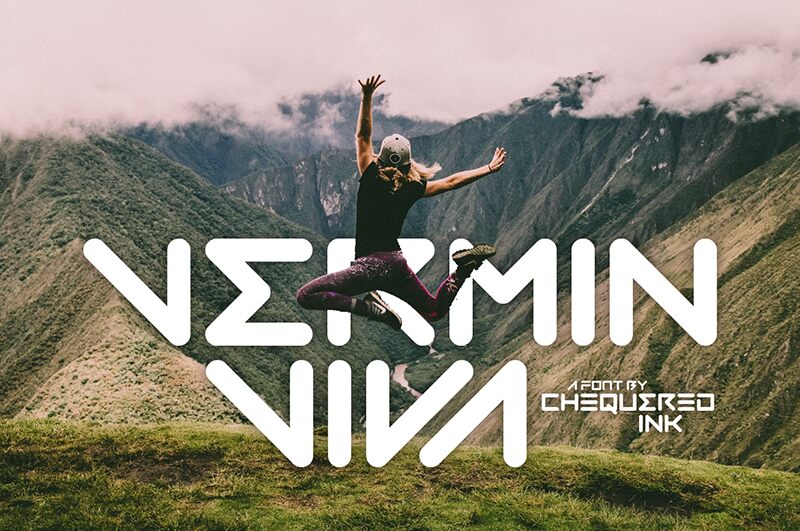
Vermin Viva
Vermin Viva font by Chequered Ink is a techno display font featuring an expanded width for engaging long or short texts. It has an industrial, futuristic, and geometric style that will not go unnoticed in your creative design. The letters share a modern appeal created from symmetrical lines and sleek designs presented here in a free techno display font.